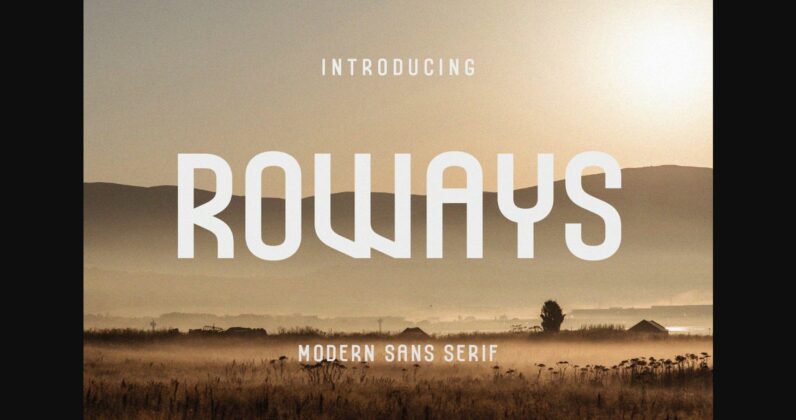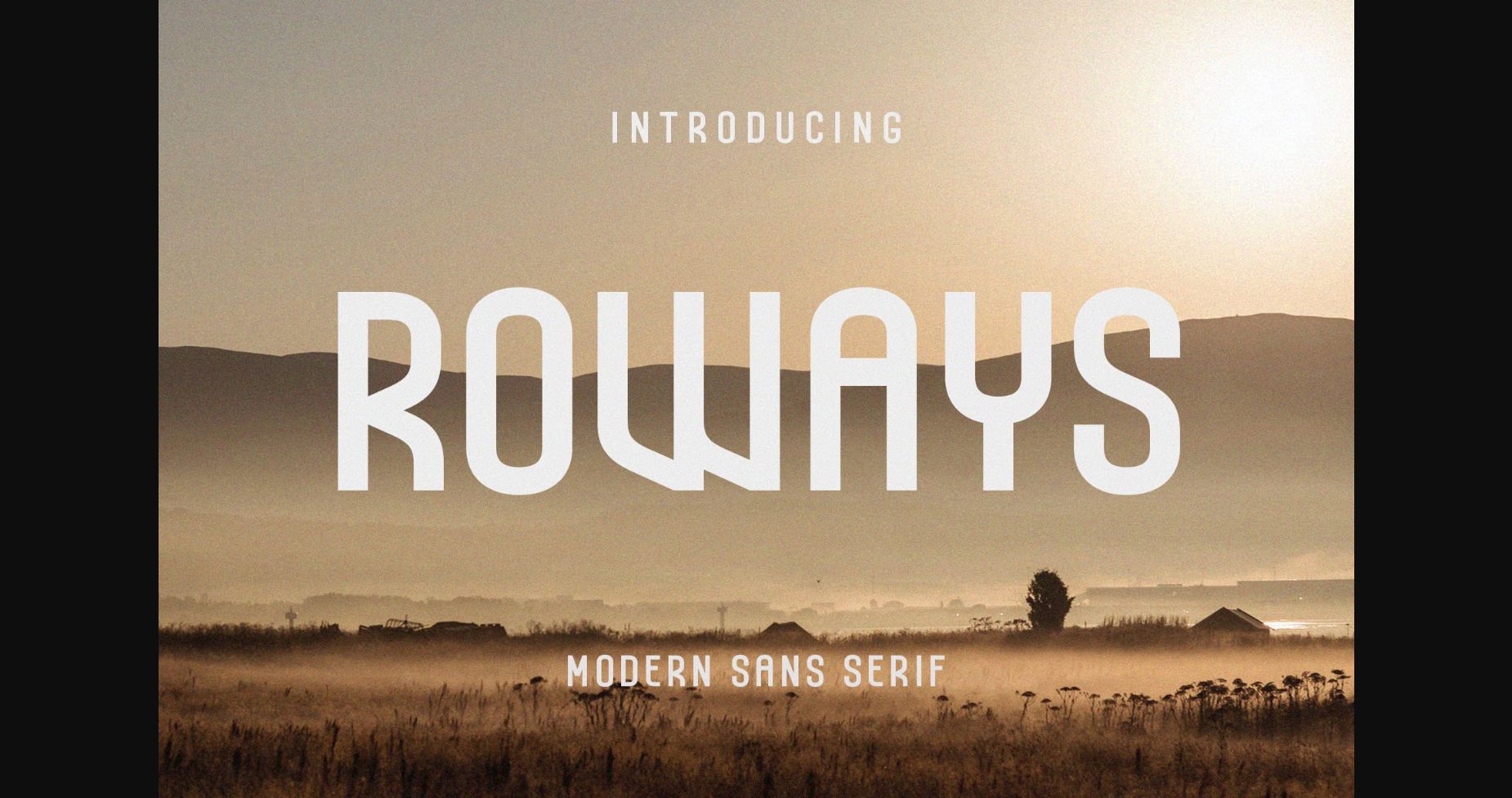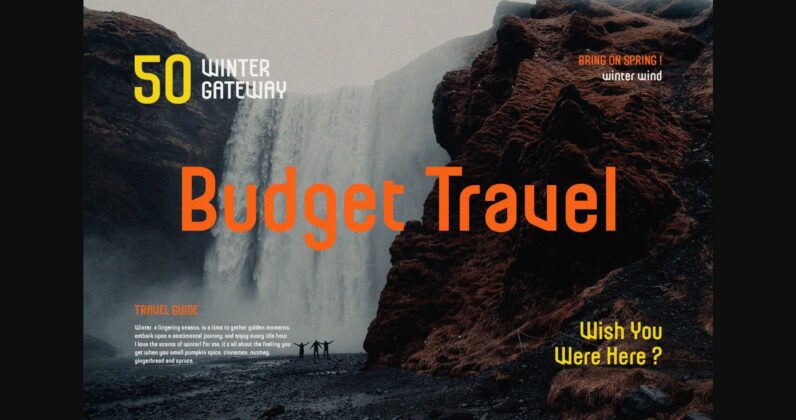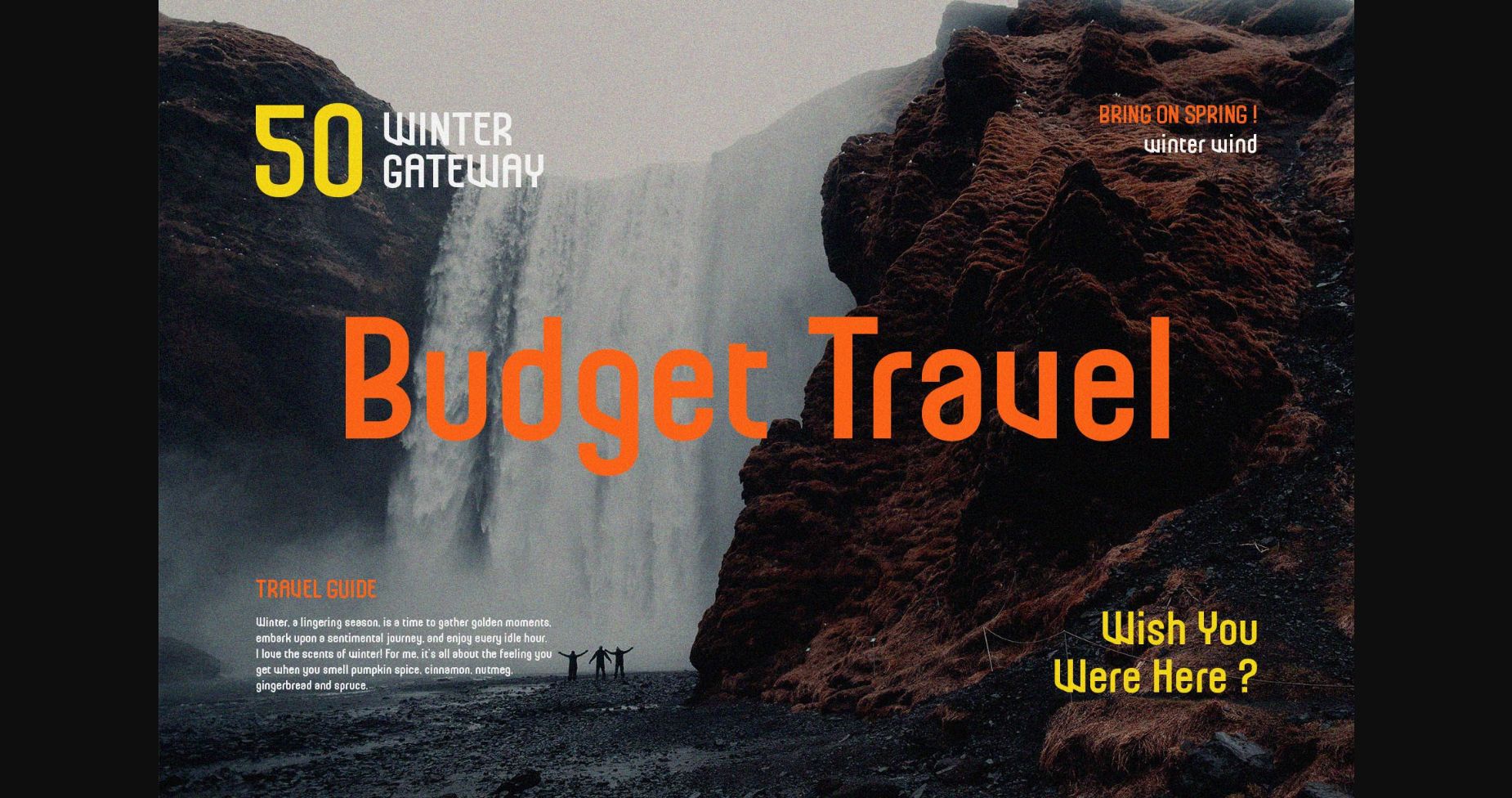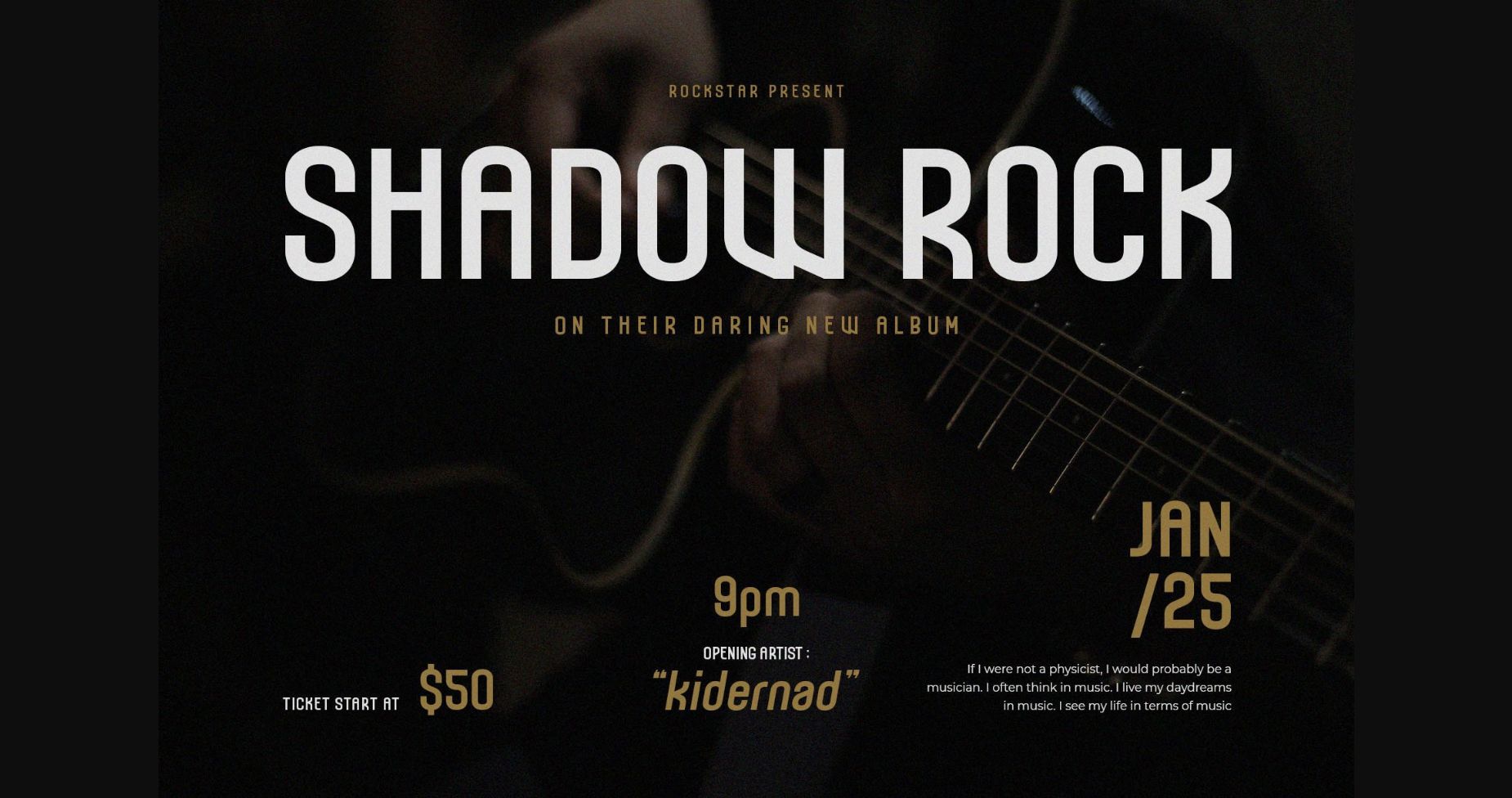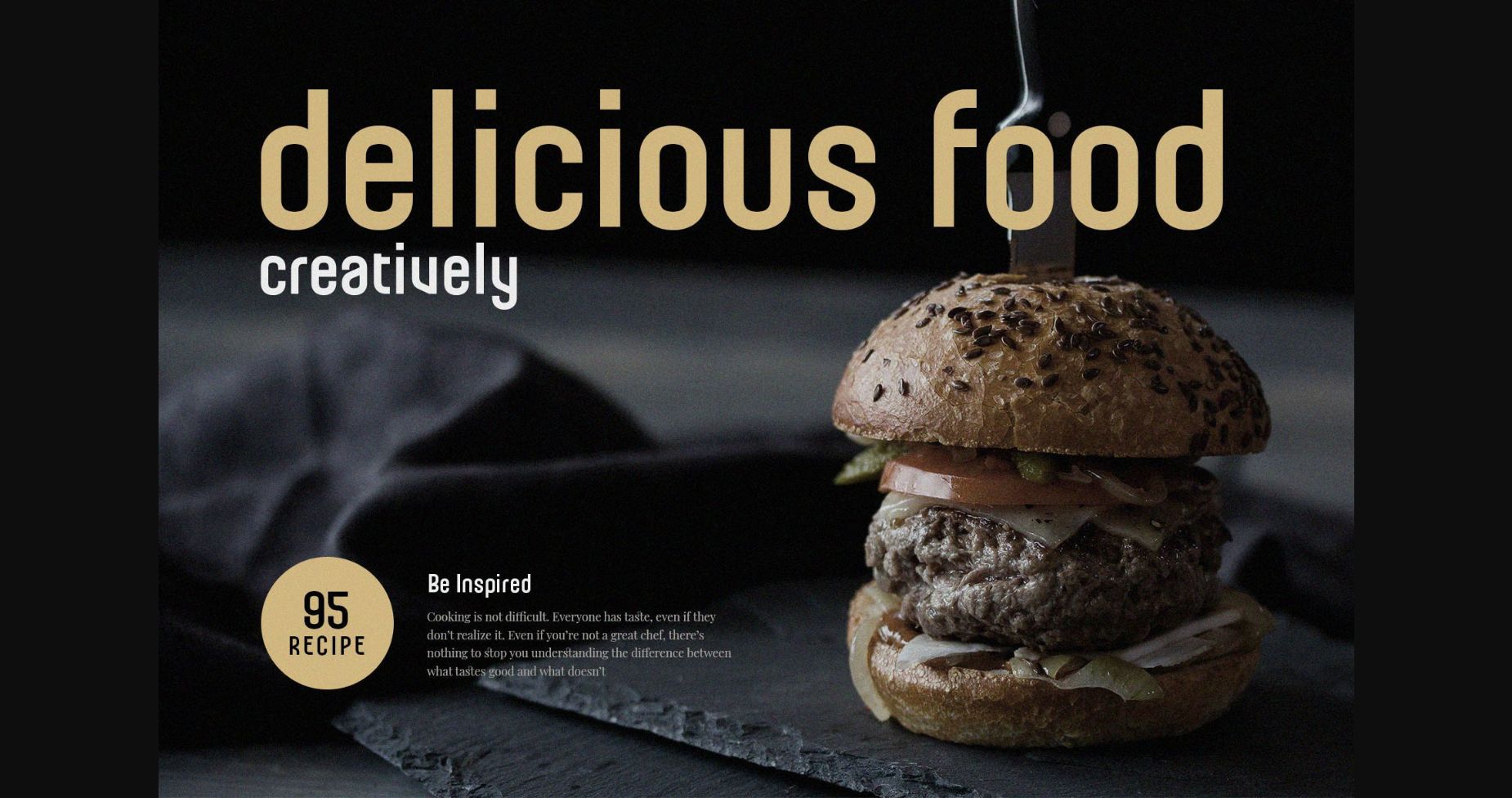
Roways Font
About Roways Font
Roways is a modern and stylish sans serif font. Whatever the topic, this font will be a wonderful asset to your font library, as it has the potential to enhance any creation.